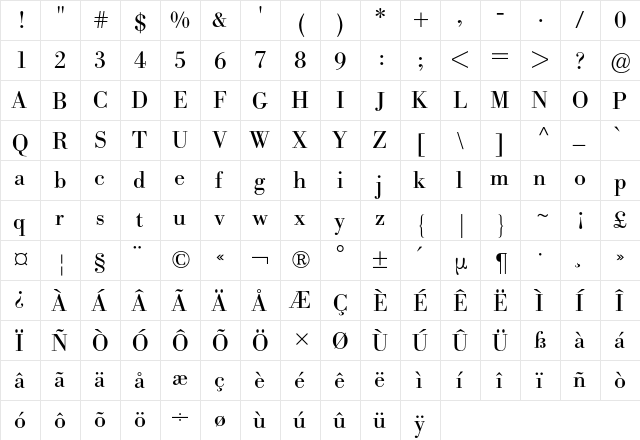
Bodoni Berthold BQ Regular
Design Context for Bodoni Berthold BQ Typeface
Bodoni Berthold BQ offers clean, dependable letterforms without strong stylistic allegiance, making it a practical choice for designers who need flexibility.
Pro Tip: Use Bodoni Berthold BQ in both headline and body roles to test its range before committing to a single application.